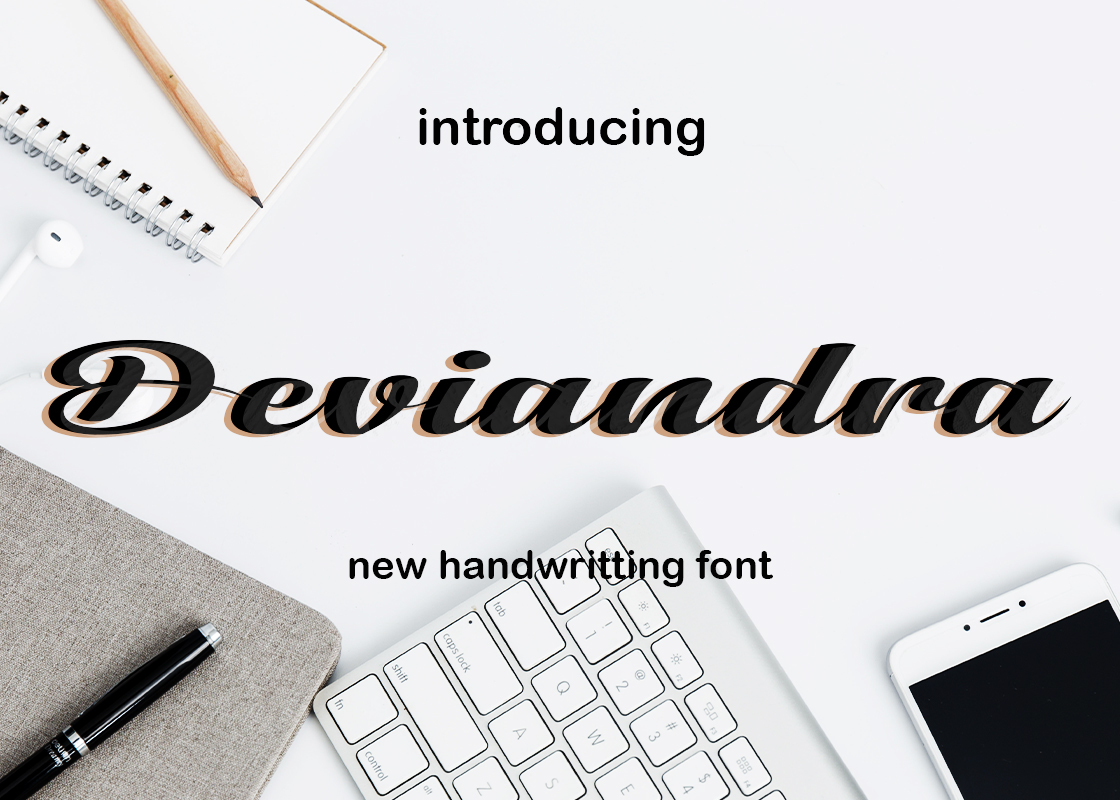
Deviandra Font
About Deviandra
Deviandra is a free-flowing script font created for packaging products, invitation cards, flyers, mockups, event posters, and anything else that requires high-quality vibes. It has a beautiful and balanced character, that fits well with the large design pool.
Deviandra – Modern Script Font , from Glorytype Studio, suitable for any projects such as: logos, branding projects, homeware designs, product packaging, mugs, quotes, posters, shopping bags, t-shirts, book covers, name card, invitation cards, greeting cards, label, photography, watermark, special events, and all your other lovely projects that need a beautiful script taste.